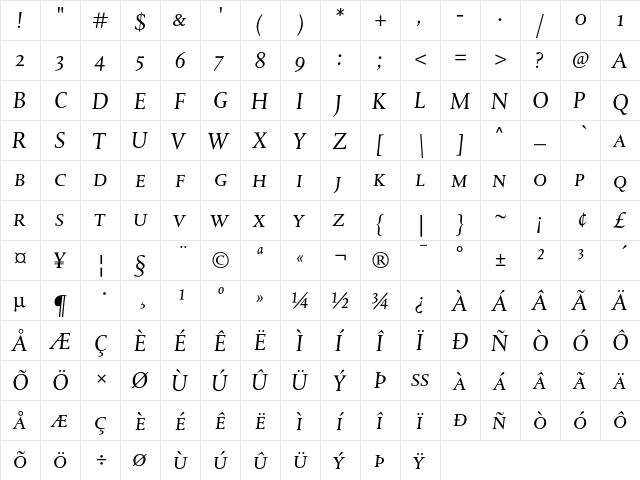
DTL Albertina T Caps Italic Font Preview
DTL Albertina T Caps Italic
DTL Albertina T Caps Italic Font Details
| Style | T Caps Italic |
Design Context for DTL Albertina Typeface
DTL Albertina is a composed and adaptable typeface that performs quietly and consistently across a wide range of design contexts. Its italic angle brings a sense of urgency and motion to the letterforms.
Pro Tip: Try DTL Albertina for annotation and caption copy alongside an upright companion — the contrast in angle creates a dynamic but ordered typographic system.